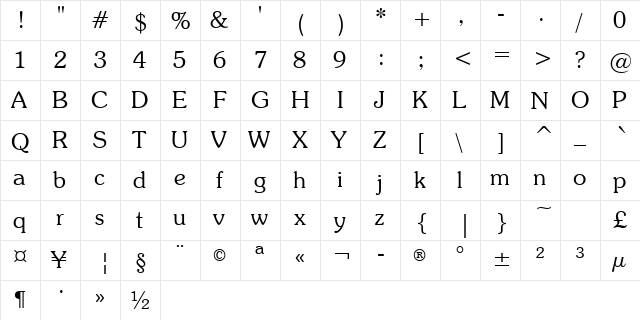
SouvenirGreek Lt BT Light Font Preview
SouvenirGreek Lt BT Light
Design Context for SouvenirGreek Lt BT Typeface
SouvenirGreek Lt BT takes a measured approach to typography — its balanced proportions and neutral character make it a reliable workhorse for both digital and print work. Its slender proportions lend an understated elegance to any composition.